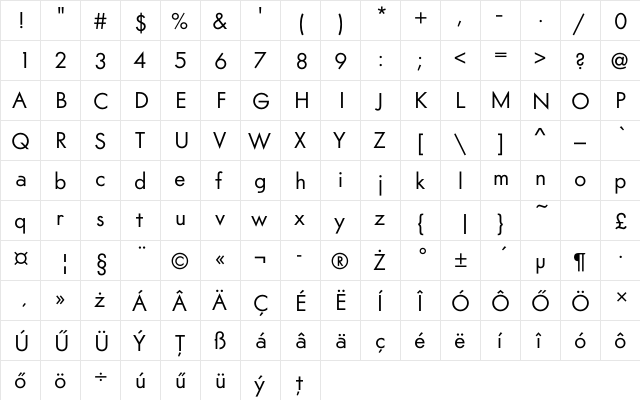
Am Sans Regular
| Foundry | Volker Busse |
| Designer | Volker Busse |
Design Context for Am Sans Typeface
Am Sans offers clean, dependable letterforms without strong stylistic allegiance, making it a practical choice for designers who need flexibility.